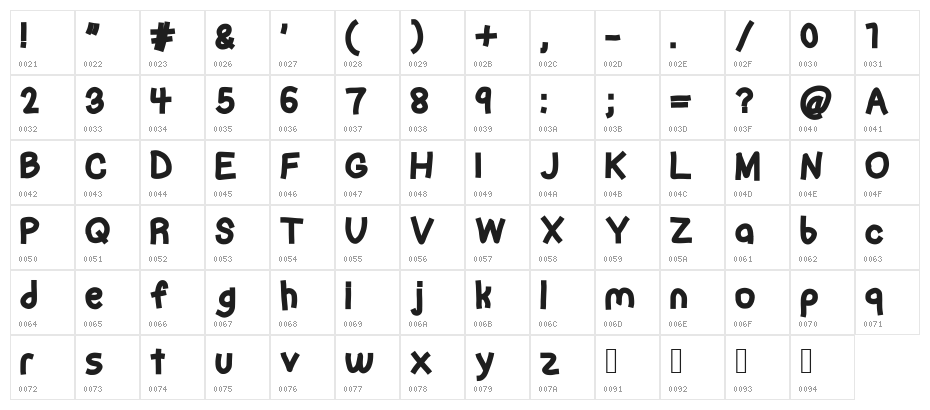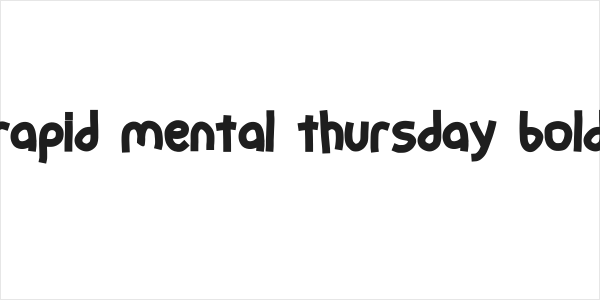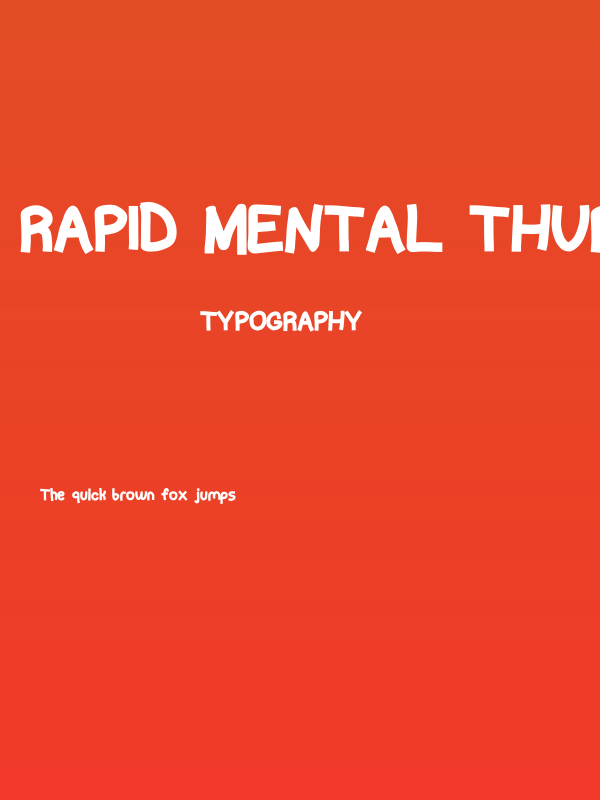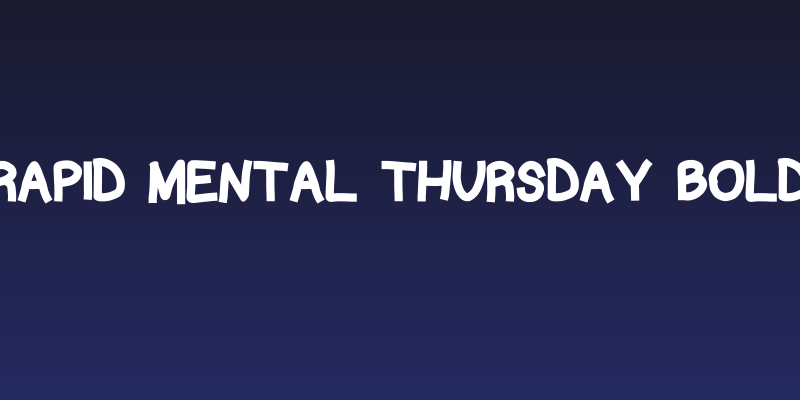
rapid mental thursday bold Font
rapid mental thursday bold Description
This font features a playful and bold style with a hand-drawn appearance. The characters are slightly irregular, adding a whimsical and informal touch. The uppercase and lowercase letters maintain a consistent thickness, contributing to a cohesive look. The numbers and special characters follow the same playful design, making them suitable for creative projects. The overall appearance is both fun and approachable, ideal for designs that require a casual and friendly tone.
| Overall Style | Playful, Casual |
| Proposed Projects | Ideal for children's books, comic strips, playful branding, and casual invitations. |